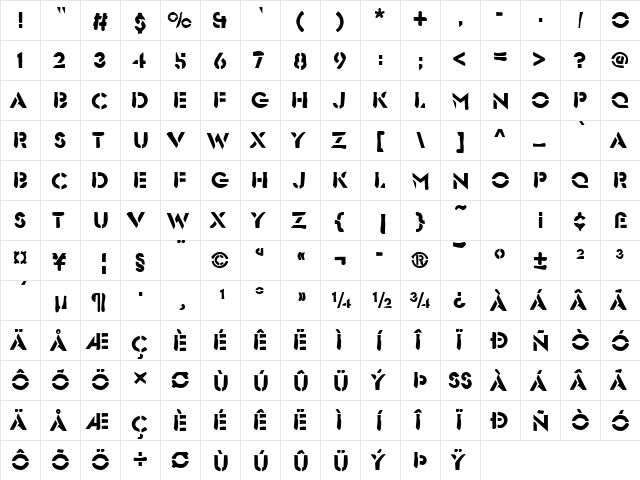
Dirty26 Becker Regular
Design Context for Dirty26 Becker Typeface
Dirty26 Becker is a composed and adaptable typeface that performs quietly and consistently across a wide range of design contexts.
Pro Tip: Use Dirty26 Becker in both headline and body roles to test its range before committing to a single application.